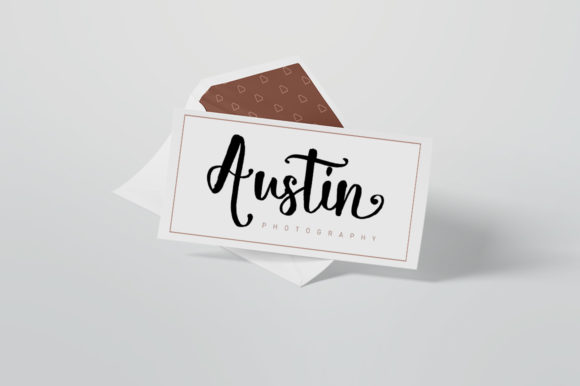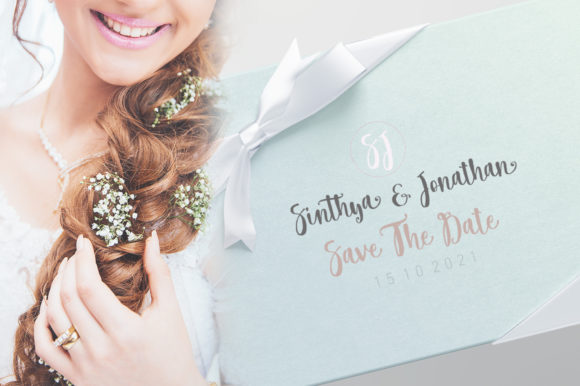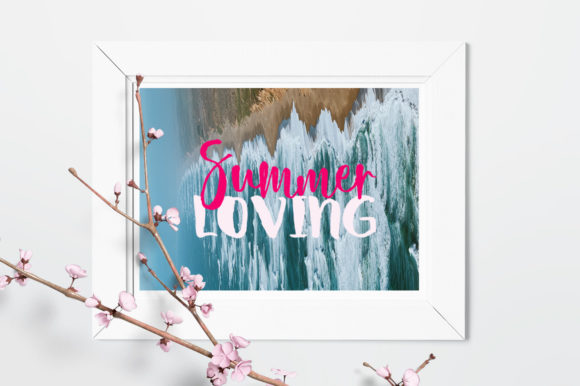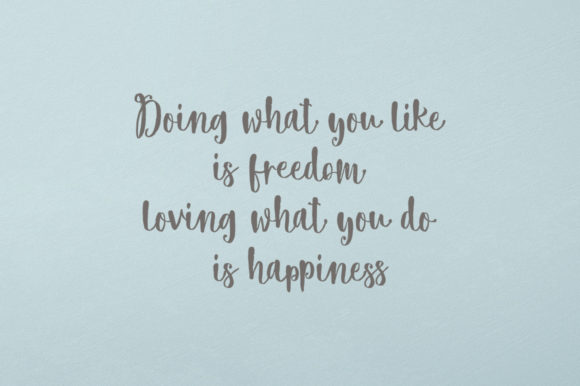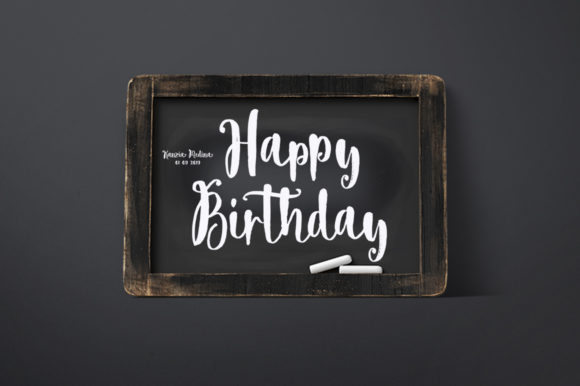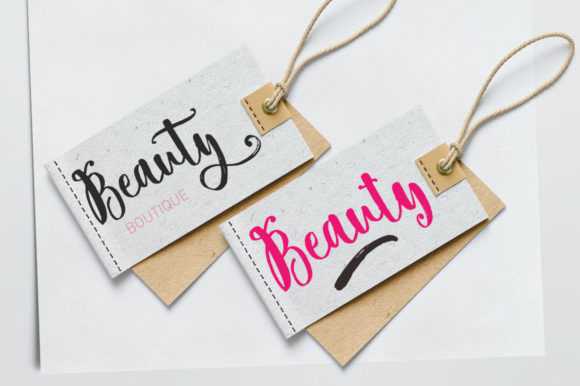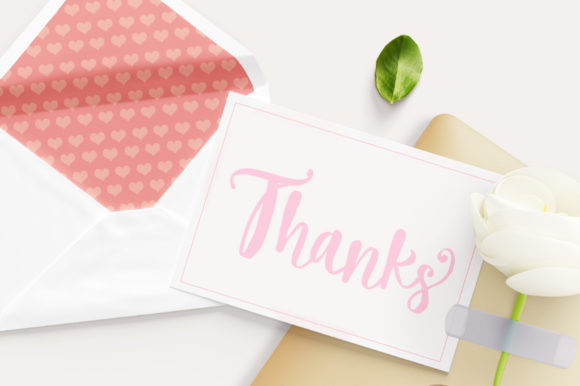
Fresh Mood Font
About Fresh Mood Font
Fresh Mood is a modern and fun script font with an undeniably authentic charm. It will add a personal touch to any design idea!